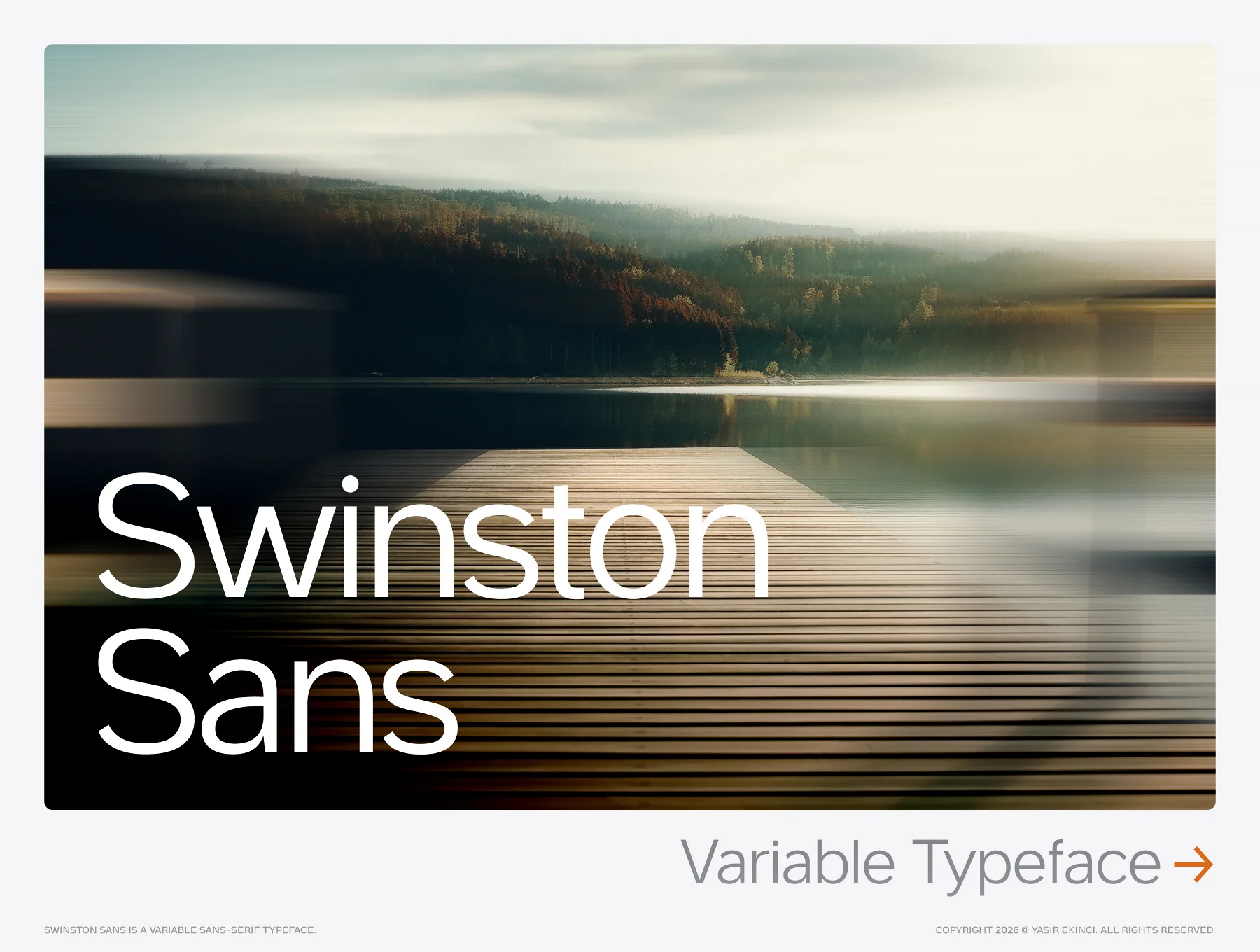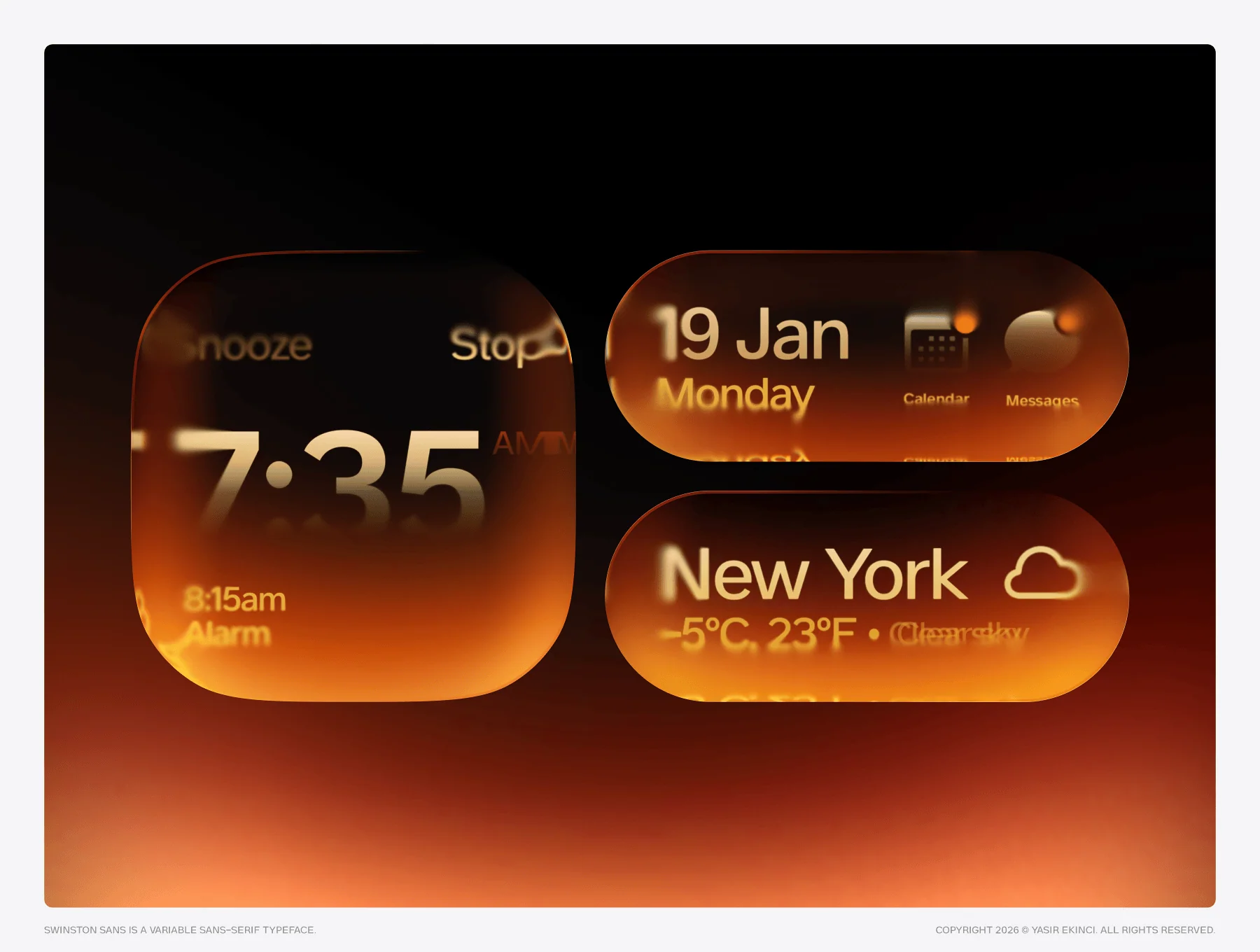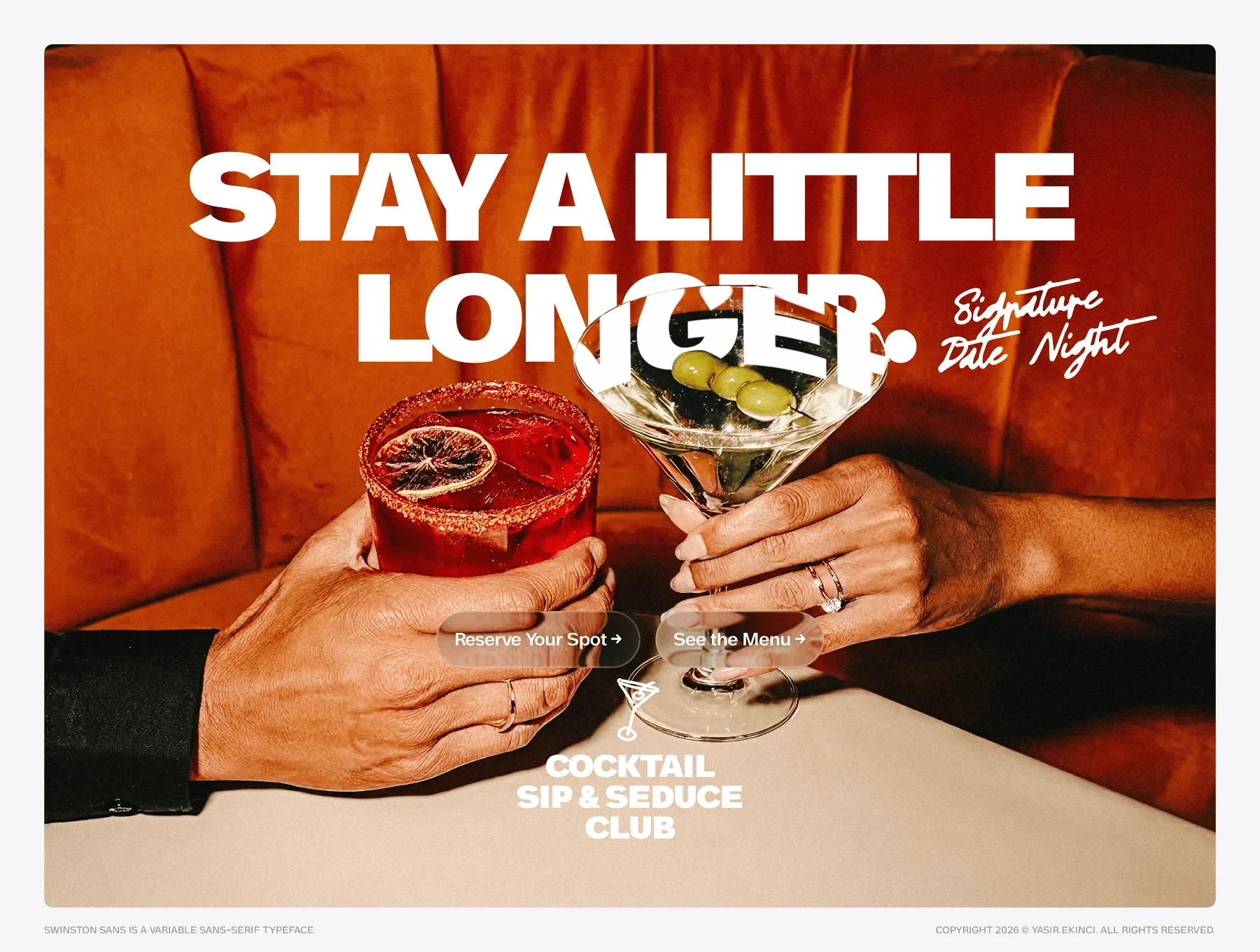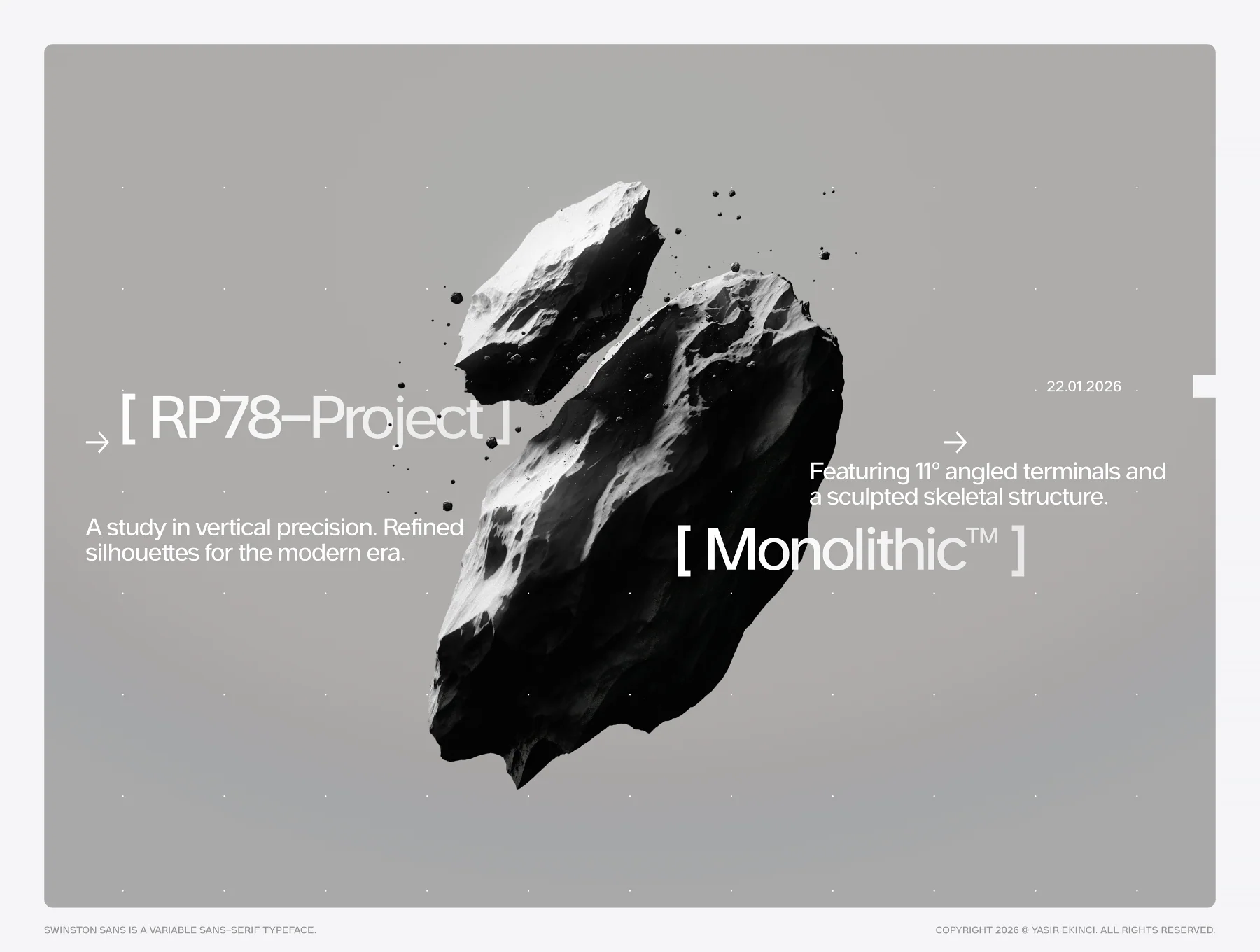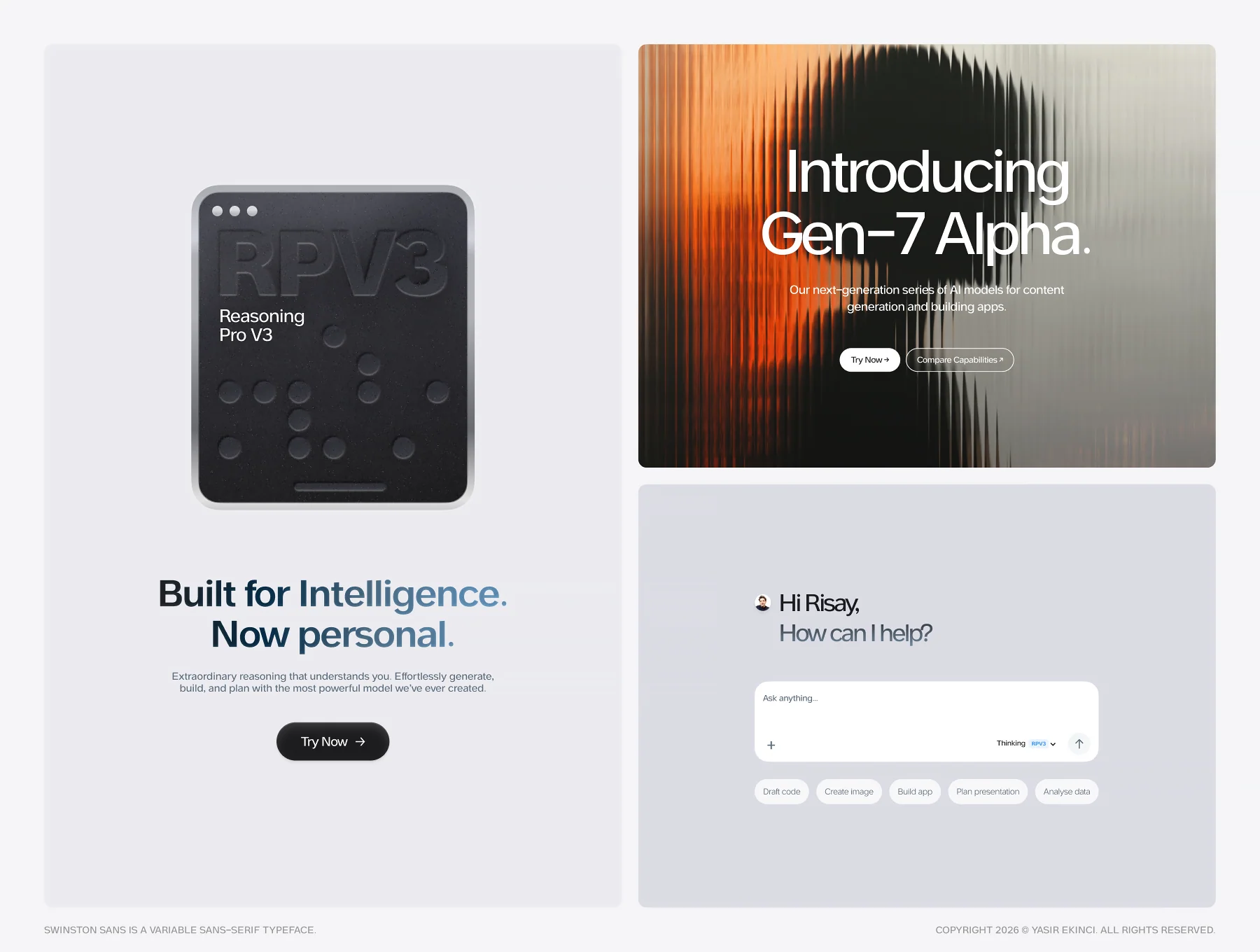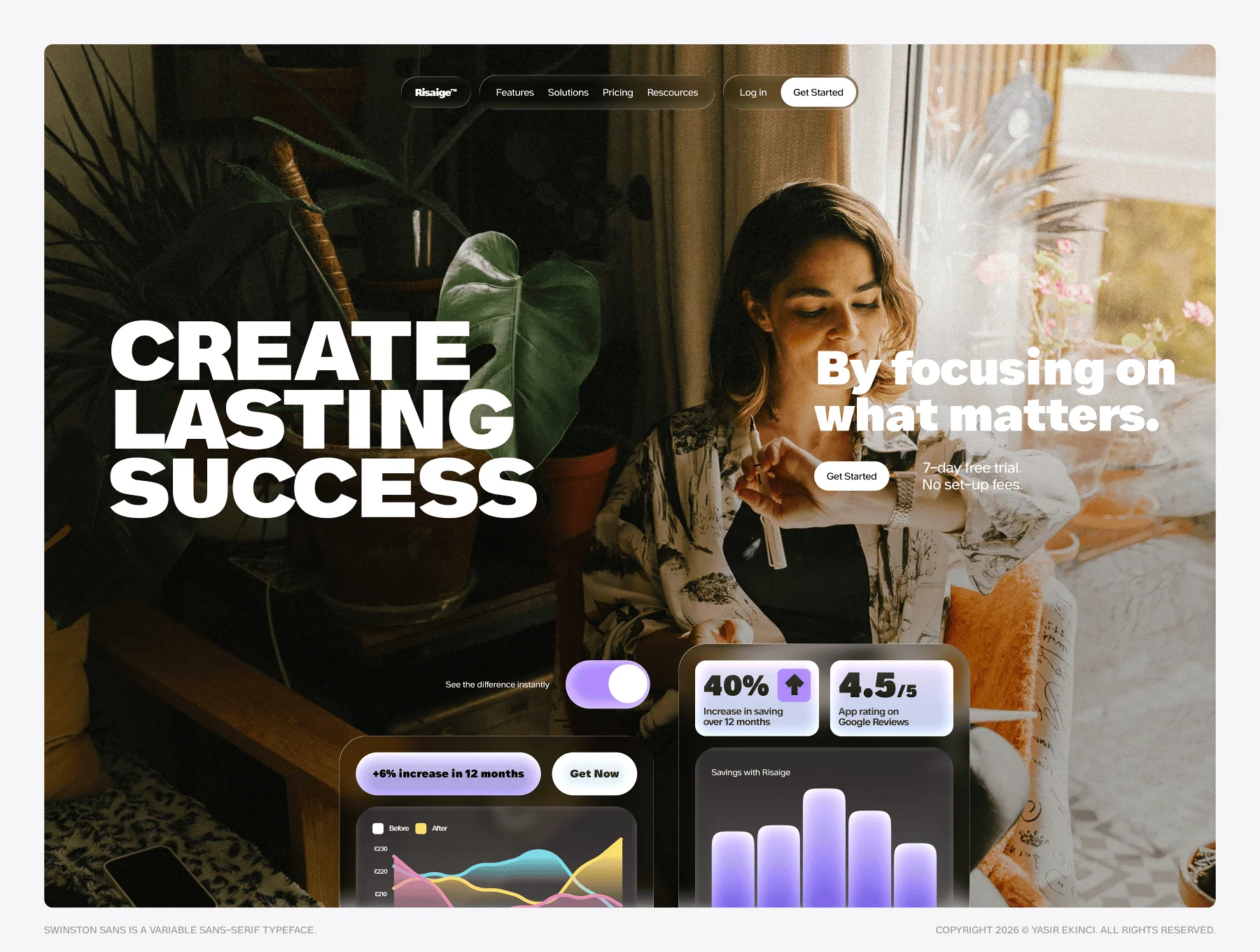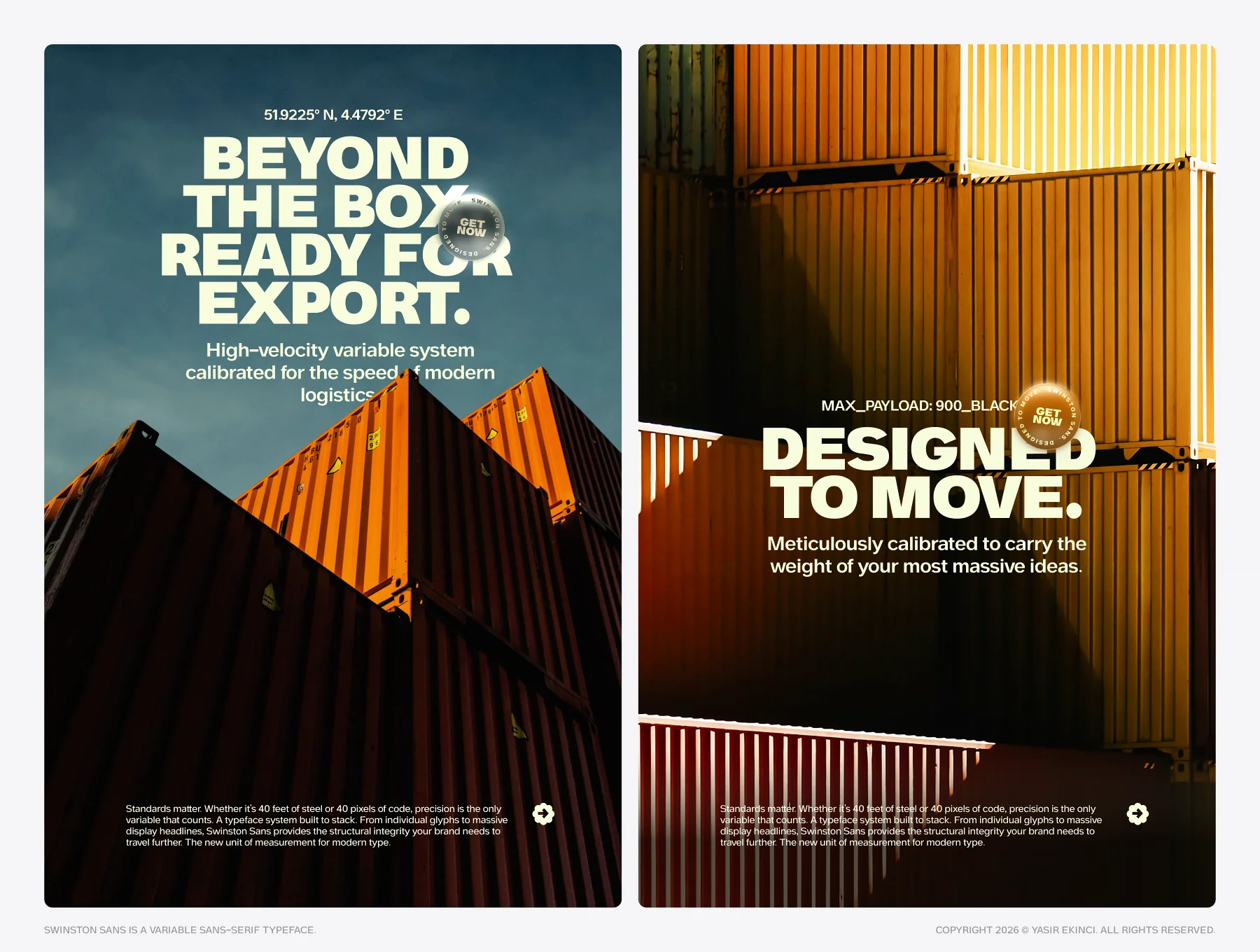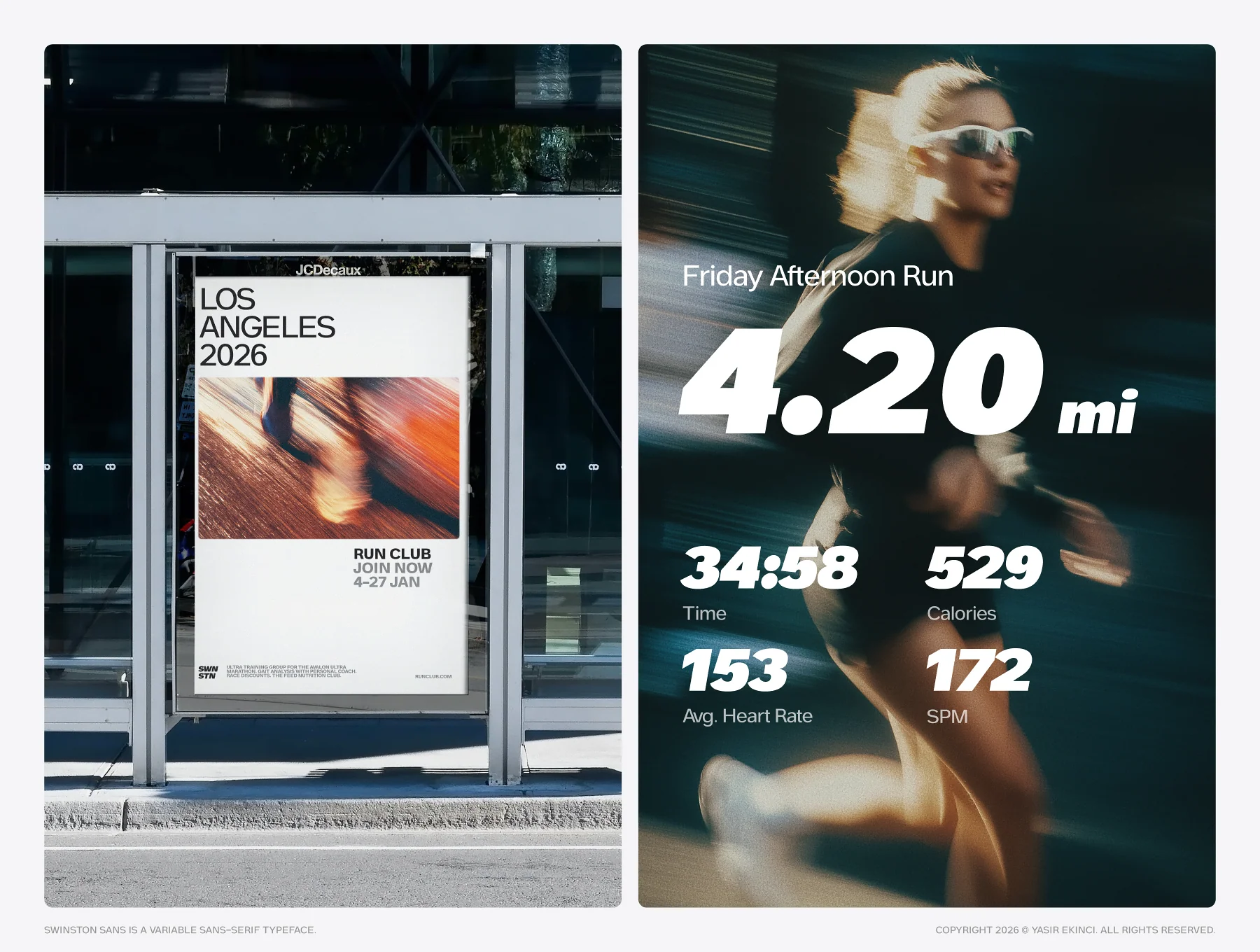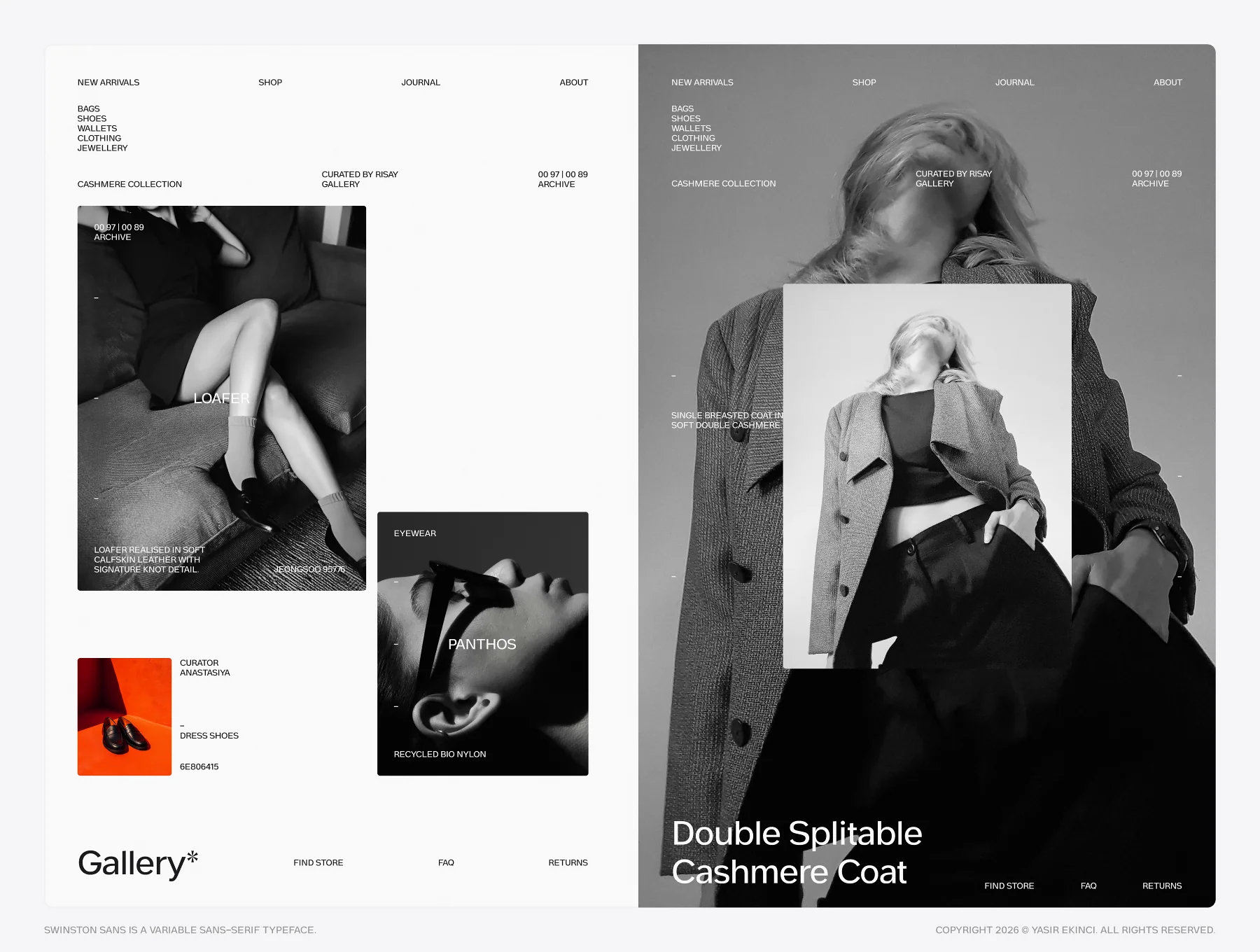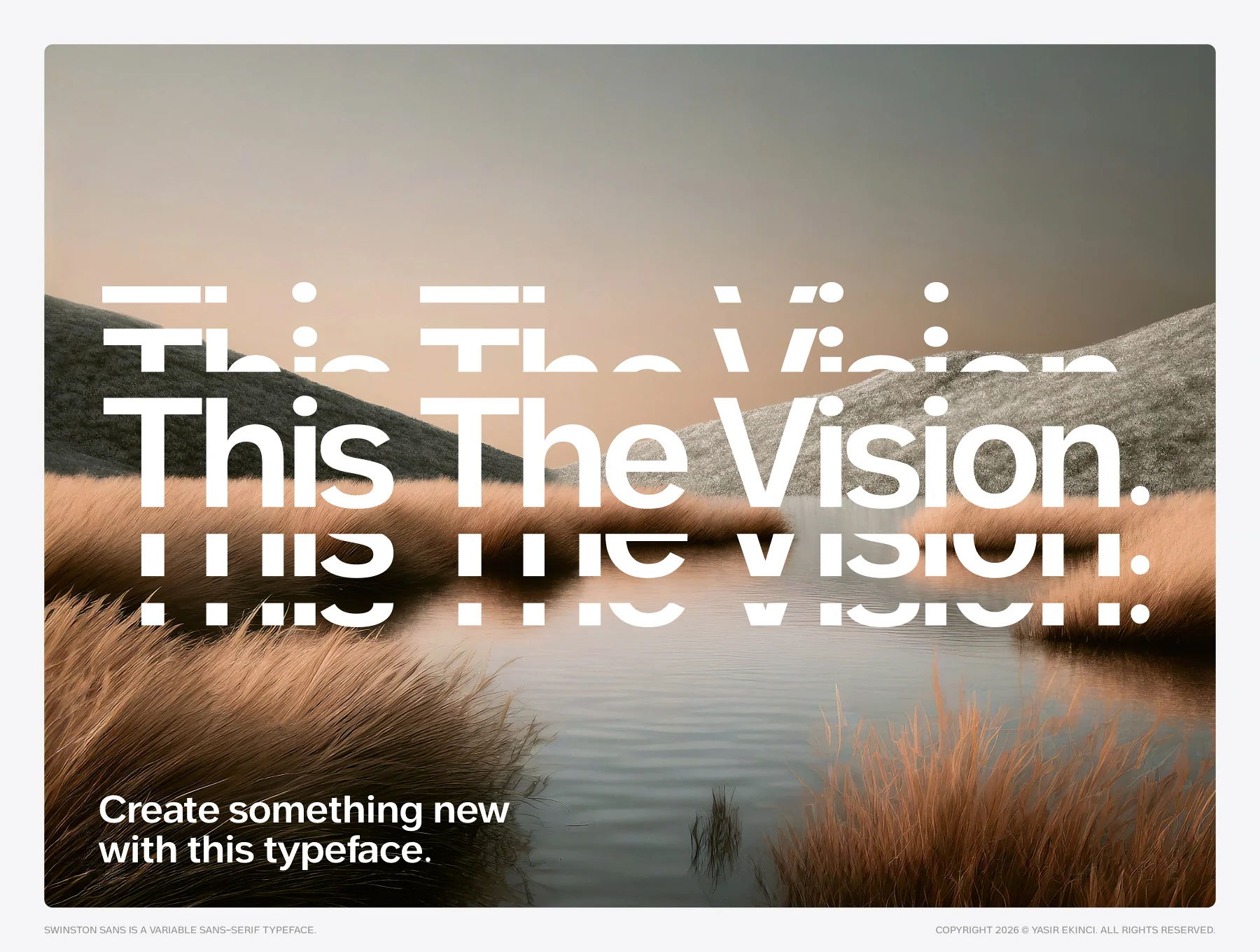
Swinston Sans Variable Typeface
Swinston Sans: European signage principles crafted for digital brand identity.
Limitless Variable Adjustment
European Design Heritage
Built for UI/UX
Distinctive 15° Shear
Swinston Sans is a variable sans-serif built for digital identity, UI, publishing, and display use. Inspired by Rotterdam wayfinding, Amsterdam’s angled canal houses, and Lisbon’s dense streets, it combines clarity with character. With weight 100–900, 0–12° slant, Extended Latin support, OpenType features, web formats, and screen-focused rendering, it’s a versatile font system for modern brands.